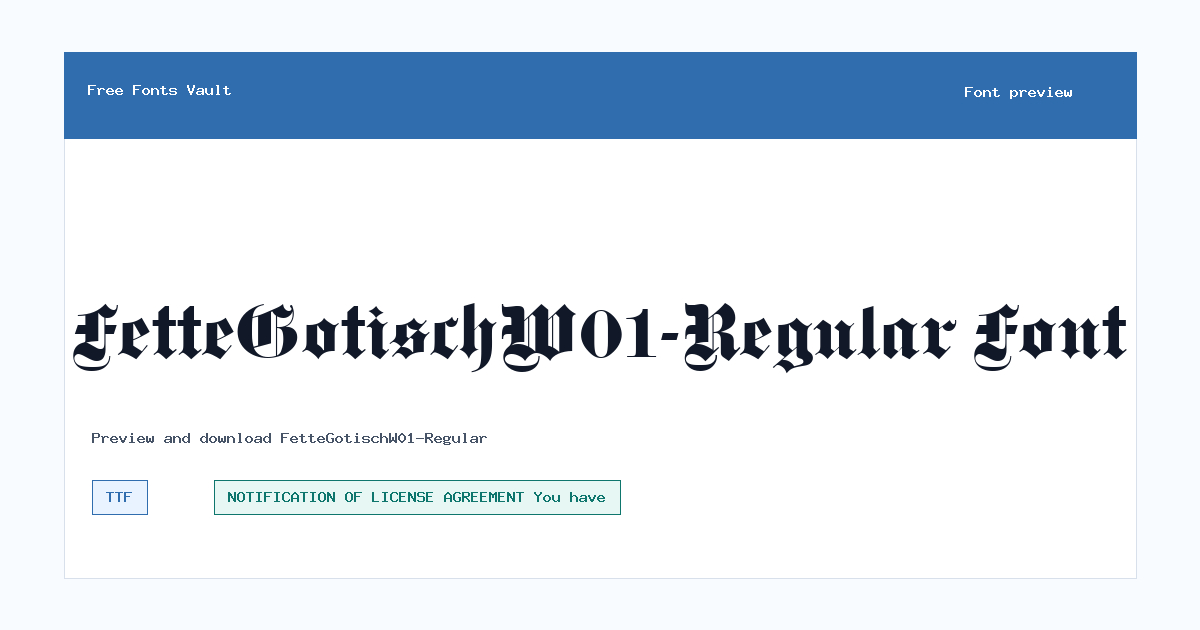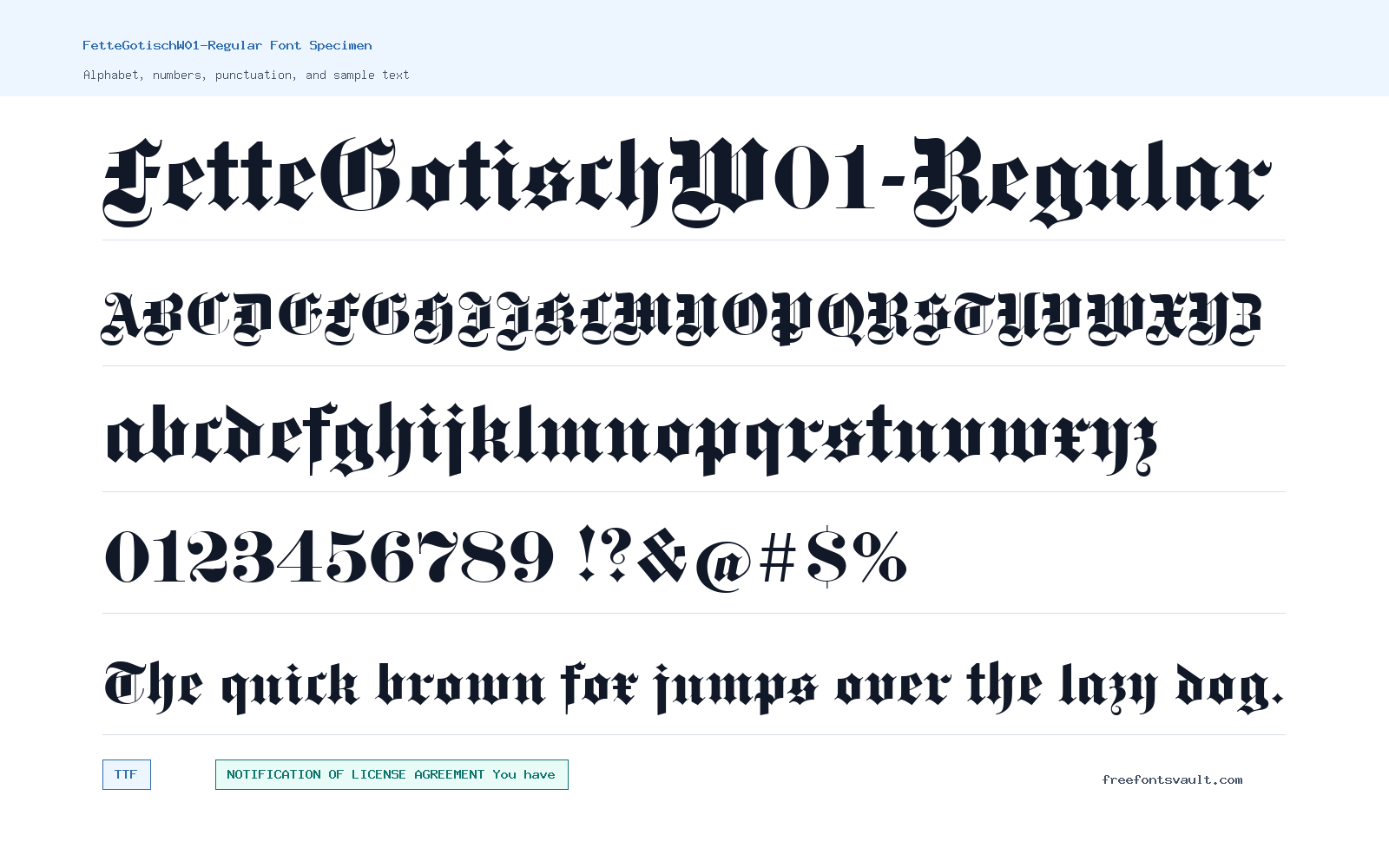
FetteGotischW01-Regular
- Designer Linotype Design Studio
- Foundry Linotype GmbH
FetteGotischW01-Regular font.
FetteGotischW01-Regular is a bold gothic blackletter display font with dense strokes, sharp letter shapes, and a traditional old-style feel. It is best treated as a headline or decorative typeface rather than a font for long reading.
About FetteGotischW01-Regular
The design has the heavy, compact rhythm people expect from classic gotisch and blackletter lettering. Its strong vertical texture can make short words look formal, historic, or ceremonial, especially in large sizes. Because the forms are decorative and tightly built, the font needs careful spacing and enough room around it to stay readable.
Use the preview tool to test real words before downloading. Blackletter fonts can change character quickly depending on the text: a single title may look striking, while a longer phrase can become hard to scan. Try uppercase and lowercase combinations, check punctuation, and view it at the size you plan to use. For most designs, pair it with a plain serif or sans serif for supporting text so the gothic style does not compete with the rest of the layout.
Because blackletter shapes are dense, use FetteGotischW01-Regular with generous spacing and strong contrast. Test uppercase words, dates, and short titles at the final output size before committing it to print or web artwork.
- Gothic blackletter display style with heavy, compact forms
- Short headlines, labels, certificates, posters, and title graphics
- Projects that need an old-style gothic or formal decorative look
The designer is listed as Linotype Design Studio, with Linotype GmbH as the foundry.
Keep FetteGotischW01-Regular for short display text. Avoid using it for paragraphs, small captions, navigation labels, or any setting where quick reading matters. Increase spacing if the letters feel crowded, and test the font against light and dark backgrounds before final use.
Is FetteGotischW01-Regular good for body text?
No. Its gothic blackletter style is better for short display text. Use a simpler font for paragraphs and longer reading.
Who made FetteGotischW01-Regular?
The designer is listed as Linotype Design Studio, and the foundry is listed as Linotype GmbH.
What should I pair it with?
Pair it with a clean serif or sans serif for supporting text. Let the blackletter font handle the title, then keep the rest of the design simple.